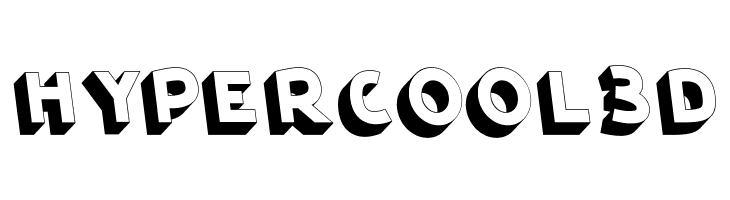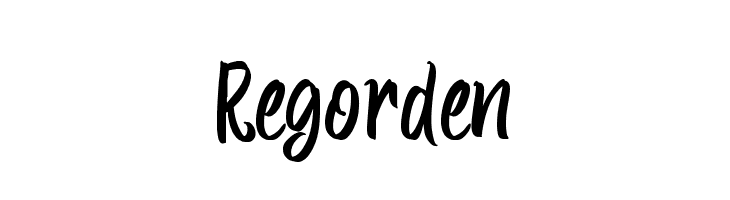
A bold, 3D geometric font with a playful and dynamic style.
A delicate and elegant script font with a natural handwritten style.
An elegant, flowing script font with smooth, cursive letterforms.
A bold, modern font with a geometric and futuristic design.
A sleek, italicized font with elongated, narrow characters for a dynamic look.
An elegant Arabic script with flowing, cursive strokes and artistic flair.
A bold, high-contrast serif font with dramatic and elegant features.
A sophisticated handwritten script with fluid, continuous strokes and elegant curves.
A playful, handwritten font with a whimsical and friendly style.
A dynamic and elegant script font with fluid, cursive letterforms.